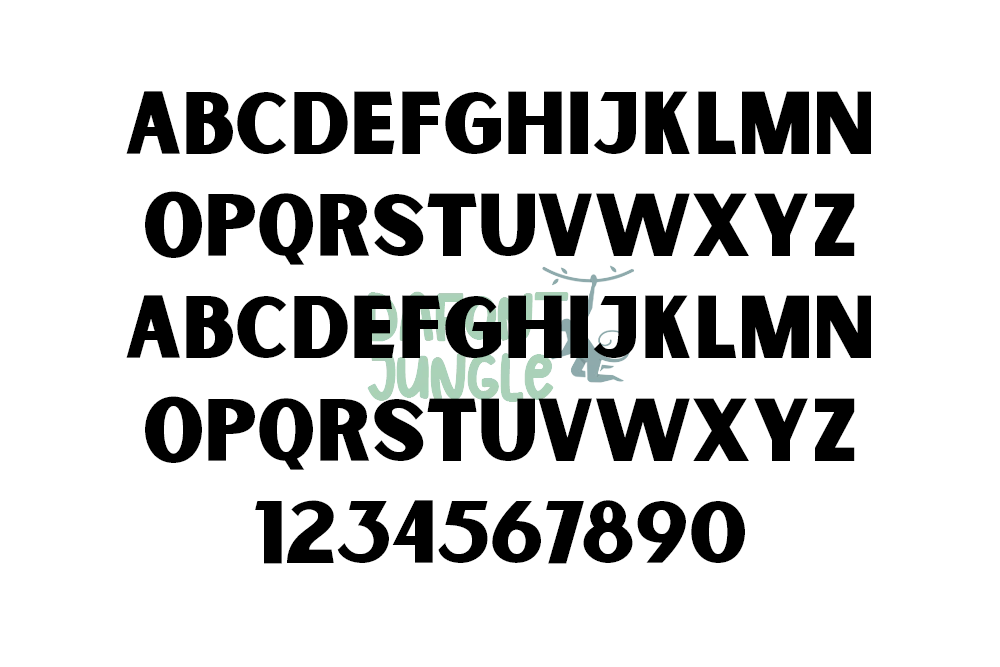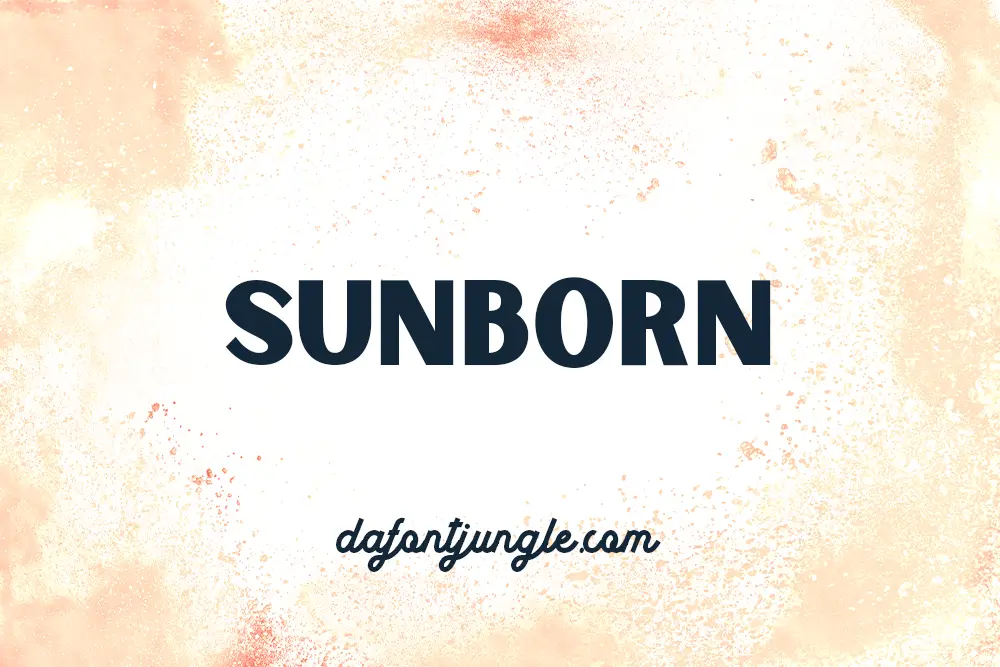
Sunborn – Vintage Serif Font with Classic Charm
Sunborn is a bold serif font family with a vintage feel. It takes inspiration from old tin signs, product labels, and classic packaging. The design feels nostalgic, yet clean and strong.
This font works well for both print and digital use. You can use it for logos, menus, posters, labels, and packaging. Its sharp lines and retro style give your project a timeless look.